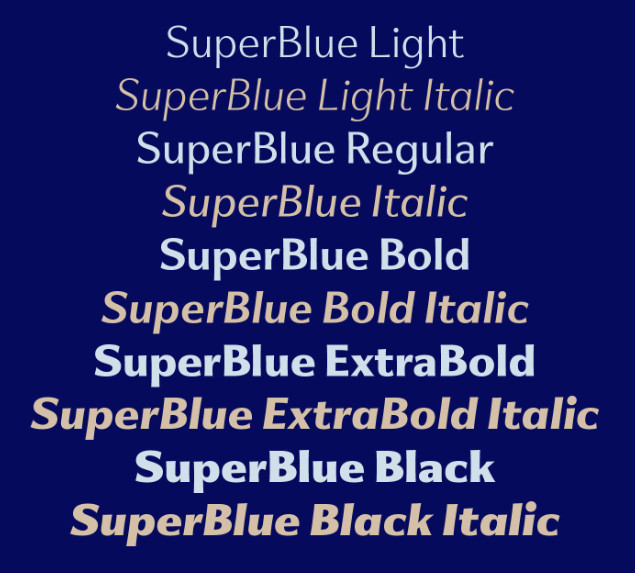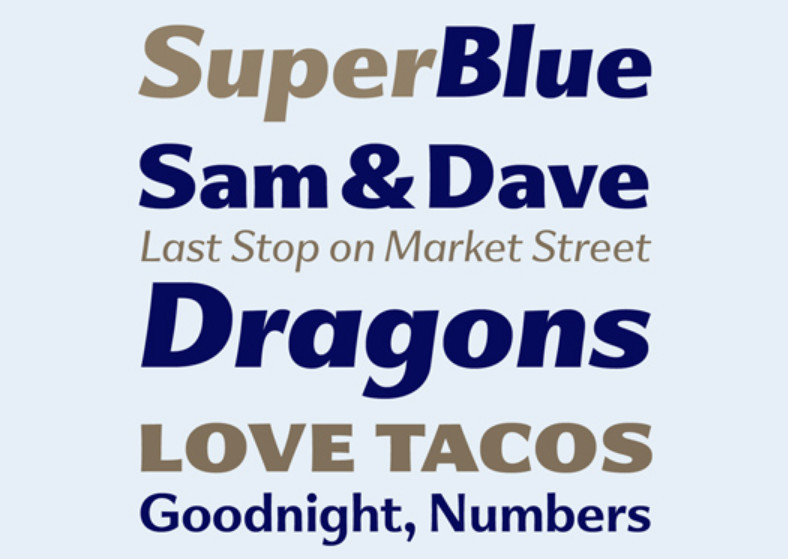
SuperBlue Font
Say hello to, SuperBlue Font, is a casual, cheerful sans serif family designed by Seán Donohoe, a Danish type designer and sign painter. Seán crafted the first version of the family during his time in the TypeMedia master’s program in type design at the Royal School of Art (KABK) in The Hague. While making initial sketches, he took advantage of his sign-painting skills, using two flat brushes to define SuperBlue’s basic forms.
Despite its spontaneous appearance, SuperBlue does not break with the canon of traditional letterforms. Designers can readily use it to set text on paper and screens without encountering any legibility issues. Moreover, the incised appearance of its stems give words set in capital letters or small caps a remarkable elegance.
SuperBlue consists of a suite of feature-rich OpenType fonts fully equipped to tackle complex, professional typesetting. Its extensive character set includes small caps, fractions, case-sensitive forms, and six sets of numerals. In addition to standard Latin, it supports Central European, Baltic, and Turkic languages.
This affable family’s lettershapes make it especially well suited to relaxed and friendly designs for video games and apps, children’s books, clothing, toys, food packaging, greeting cards, and theme park identities.